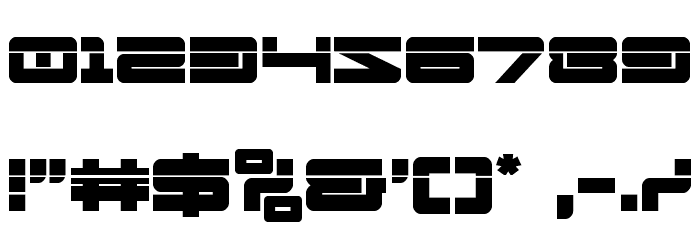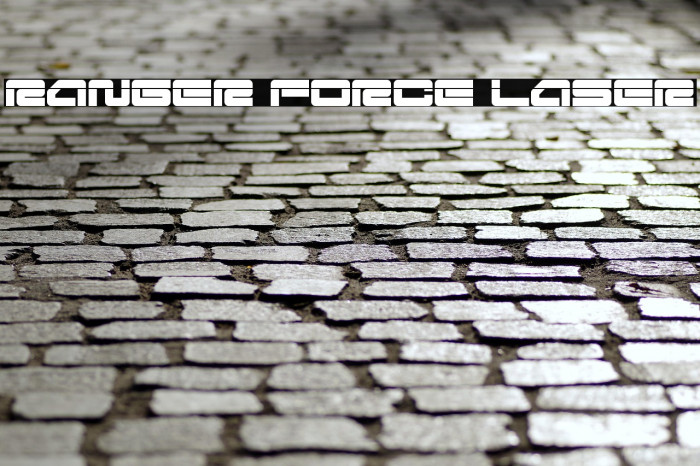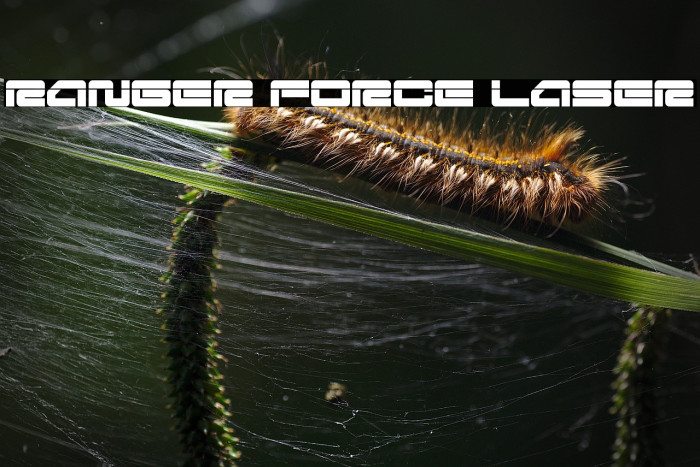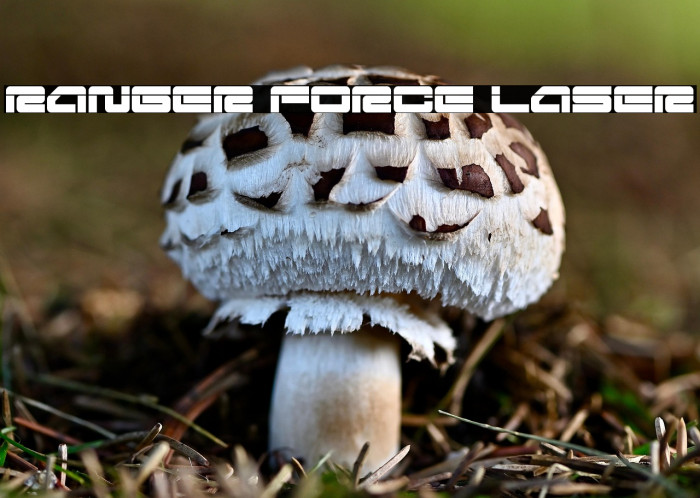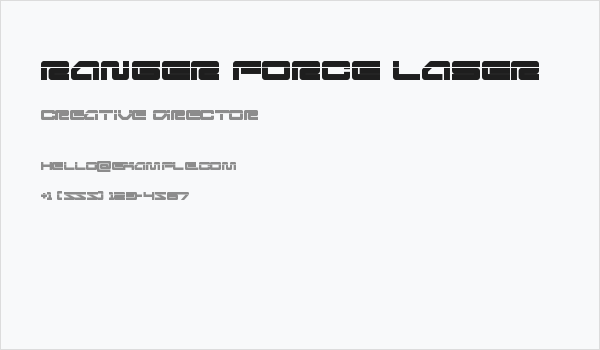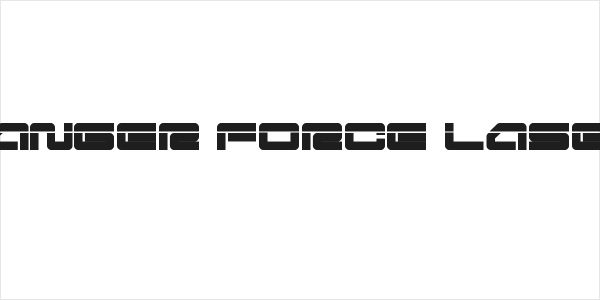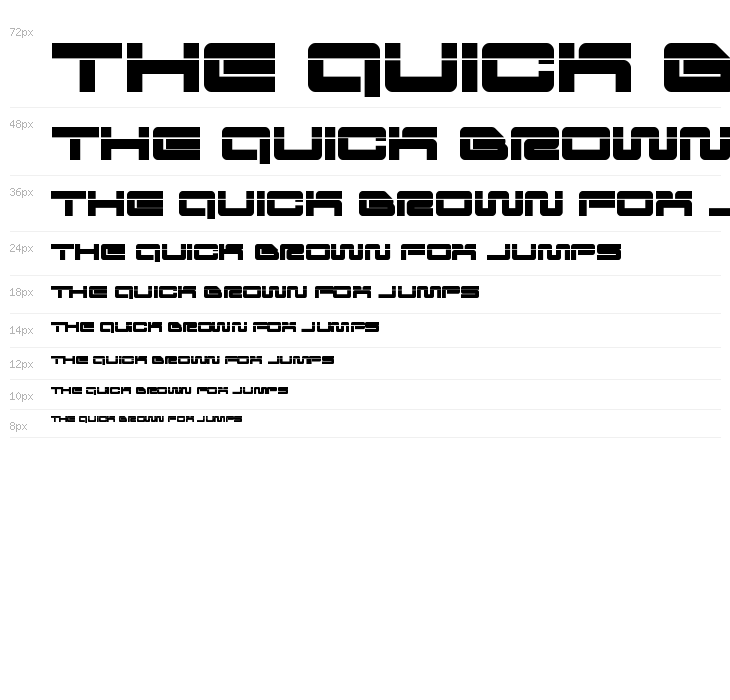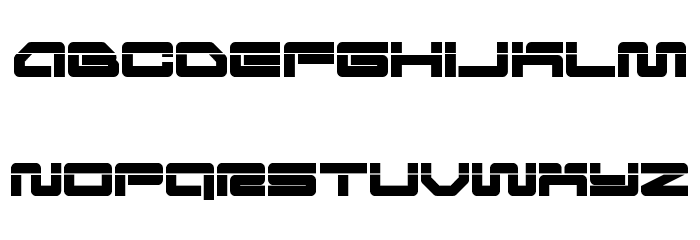
Ranger Force Laser Font
Ranger Force Laser Description
This font features a futuristic and bold design with a strong geometric structure. The characters are constructed with a series of straight lines and sharp angles, creating a mechanical and digital appearance. The uppercase and lowercase letters maintain a consistent style, with uniform stroke widths and a blocky aesthetic. The numerals and special characters follow the same design principles, ensuring a cohesive look across all glyphs. This font's unique style makes it stand out, ideal for projects that require a modern and tech-inspired feel.
| Proposed Projects | Ideal for technology branding, video game titles, sci-fi movie posters, and digital interfaces. |